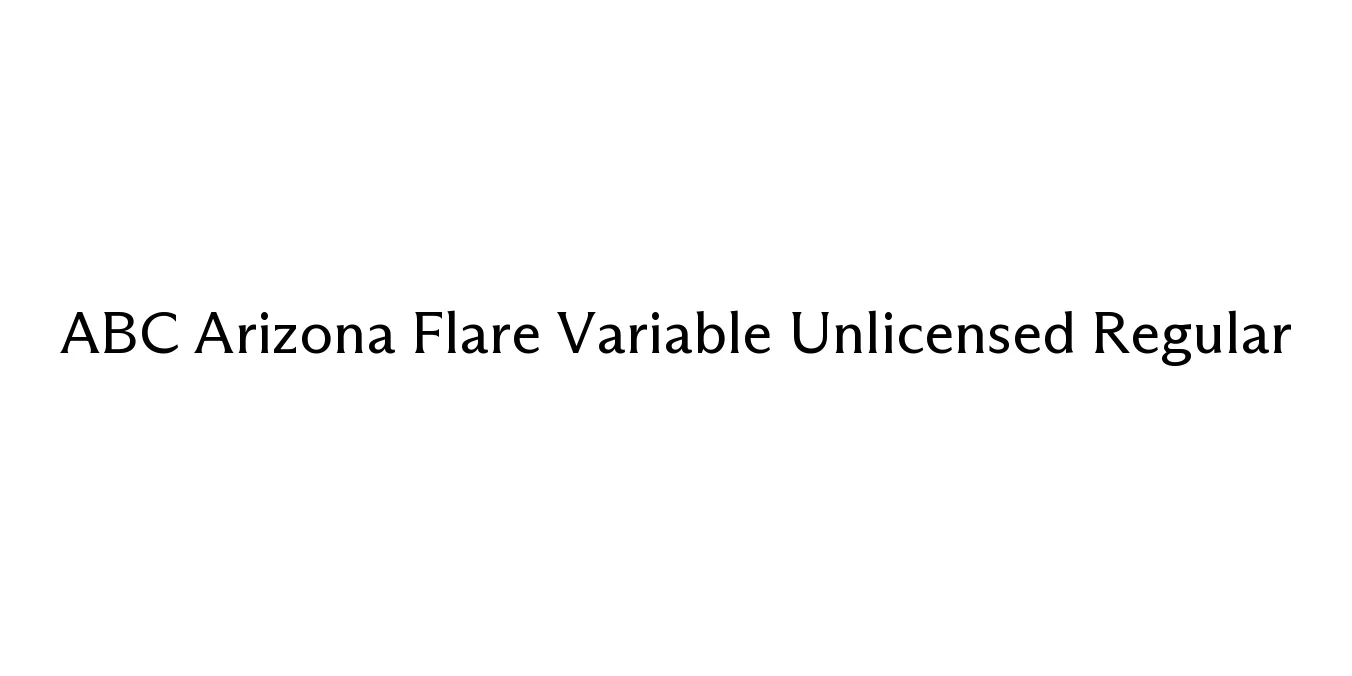
ABC Arizona Flare Variable Unlicensed Regular
Designed by Elias Hanzer
| Category | Flare Serif |
| Designer | Elias Hanzer |
ABC Arizona Flare is a distinctive component of the larger ABC Arizona superfamilies, designed by Elias Hanzer and released through the renowned Dinamo type foundry. It represents a sophisticated flare serif style that bridges the gap between the structural clarity of a sans-serif and the expressive terminals of a traditional serif. This typeface is part of a groundbreaking system—the first of its kind—to encompass five distinct stylistic categories (Serif, Sans, Flare, Mix, and Text) within a single variable font file, allowing for unprecedented fluid transitions across typographic genres.
The Flare variant specifically emphasizes elegance and modern precision, making it a favorite for high-end editorial and branding projects. Its design is rooted in historical calligraphic traditions but is polished with a sharp, digital-first aesthetic. Because it functions as a variable font, designers have the freedom to meticulously adjust weights and widths, ensuring the font maintains its unique character and legibility from bold display headers to more refined secondary titles.
Perfect for sophisticated magazine layouts and distinctive headline treatments.
Ideal for fashion, luxury, and contemporary corporate identities seeking a unique edge.
Highly effective for hero sections and interactive typography on high-performance websites.
Excellent for high-impact posters and digital ad campaigns that require refined personality.